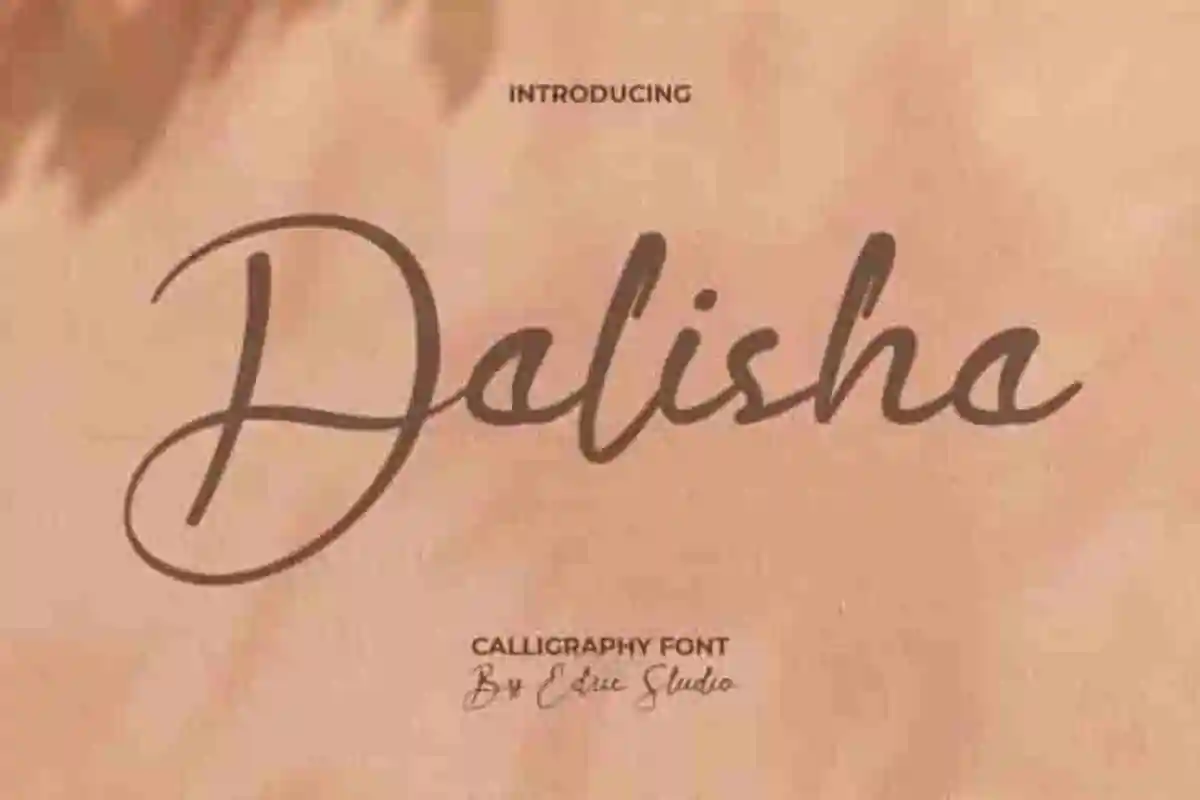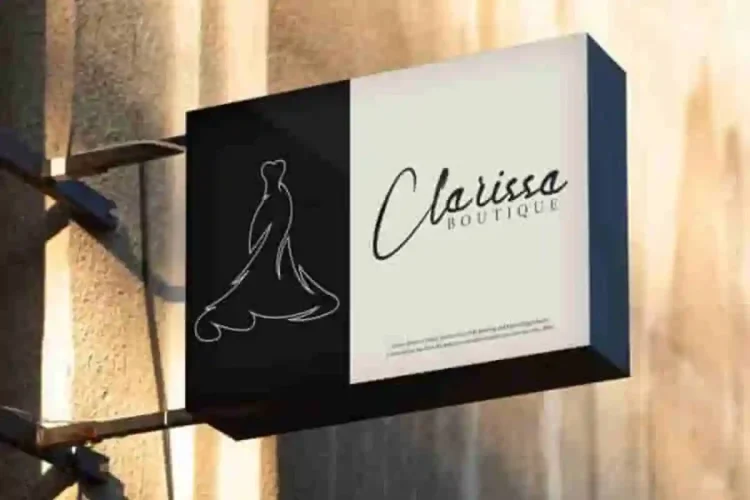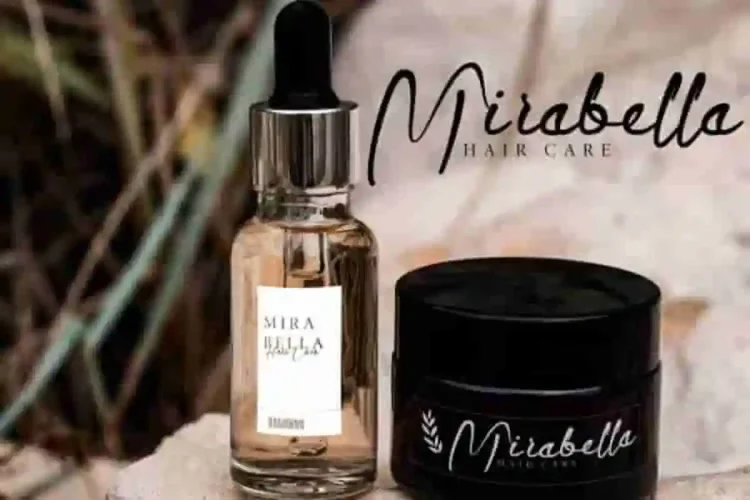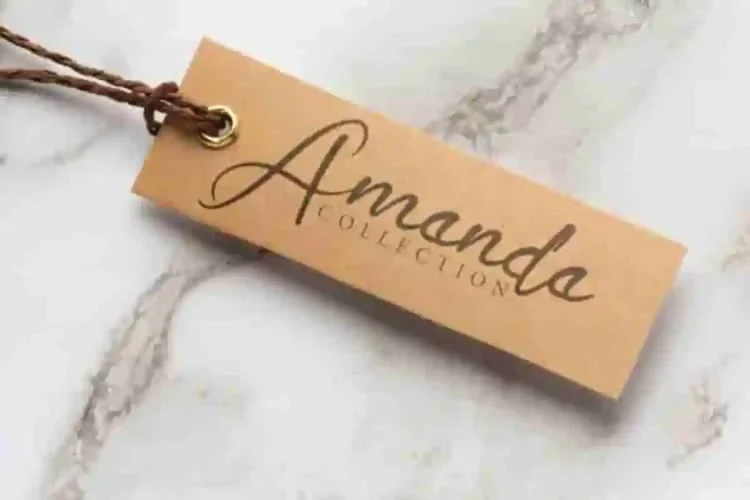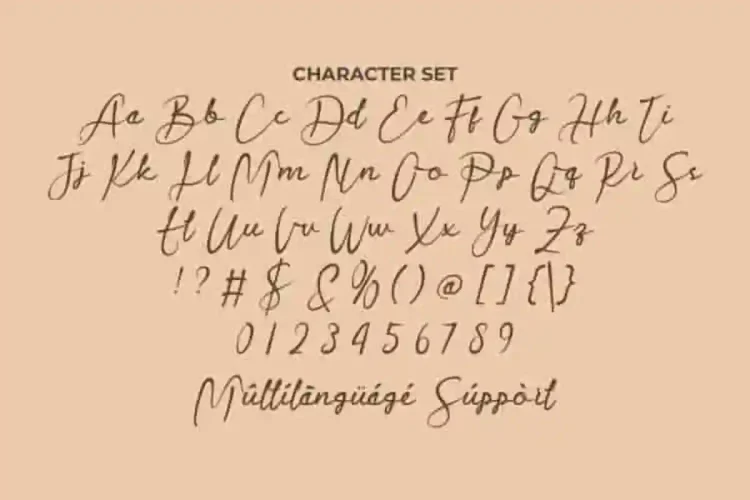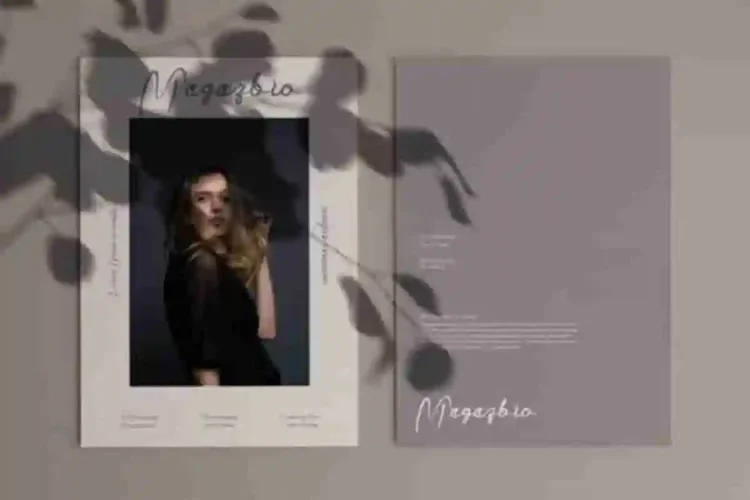
Dalisha Calligraphy Script Font
Dalisha Calligraphy Font is a casual calligraphy handwriting script font. The font handcrafted for any of your special projects : wedding, personal branding, florist signature, bakery menu etc. This handcrafted script typeface is designed to capture hearts with its playful curves and sweet personality.
Dalisha Calligraphy Font consists of uppercase, lowercase, number, and punctuation for a natural lettering look, and multilingual support. Works on PC & Mac, accessible in the Adobe products (Illustrator, Photoshop, Adobe InDesign), even work on Microsoft Word.